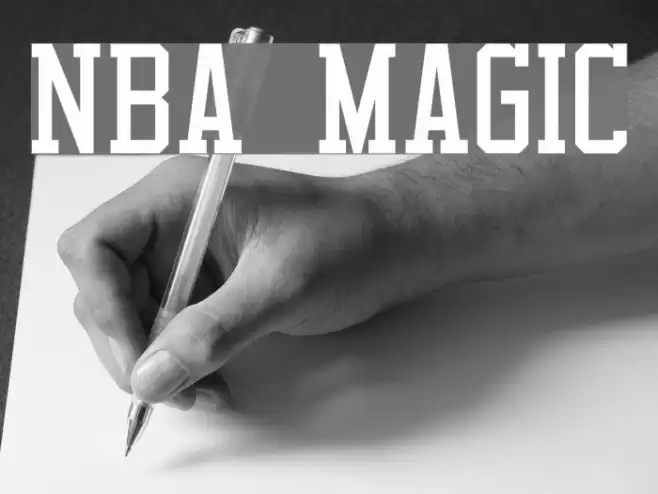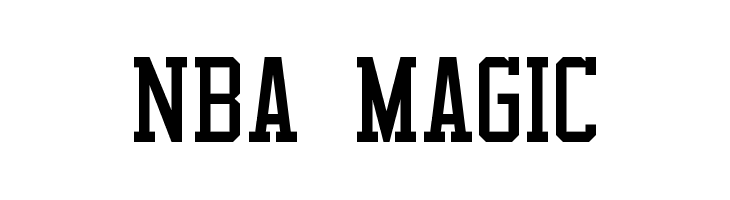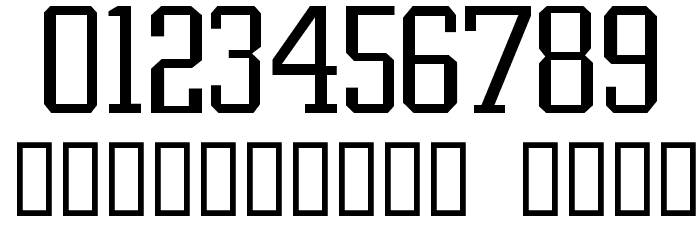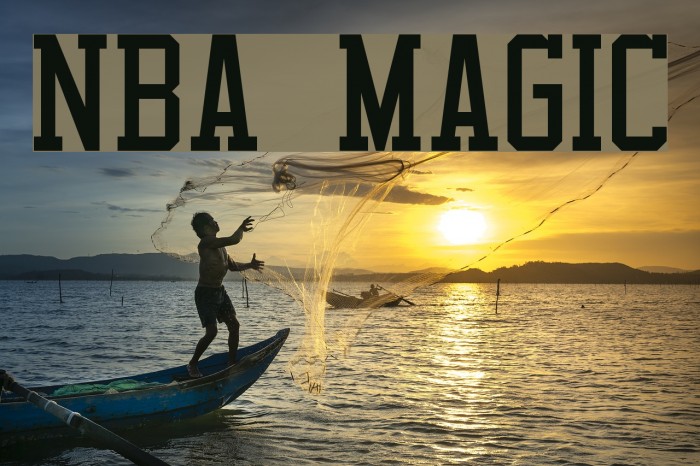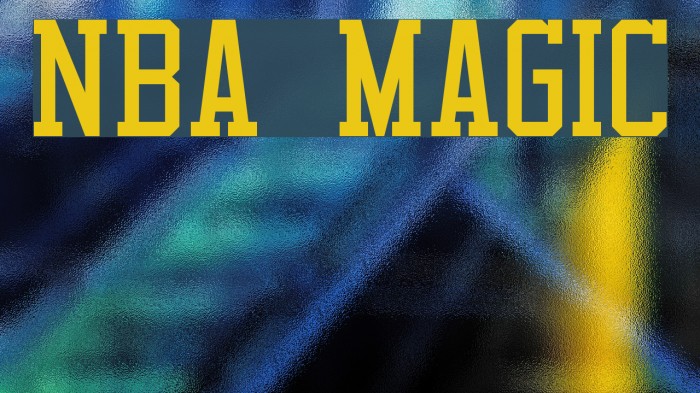
NBA Magic Font
NBA Magic Description
This font features a bold, athletic style with strong geometric shapes and a robust presence. The uppercase letters are characterized by their blocky, angular design, reminiscent of sports jerseys and team branding. The numbers follow a similar style, ensuring consistency across different uses. The font's clean lines and sharp edges give it a modern and dynamic feel, making it ideal for projects that require a sense of strength and energy. The absence of lowercase letters and special characters suggests a focus on impactful, straightforward communication.
A bold, athletic font with strong geometric shapes and a modern feel from Uncategorized fonts.
- Proposed Projects: Ideal for sports branding, team logos, merchandise, and event posters.